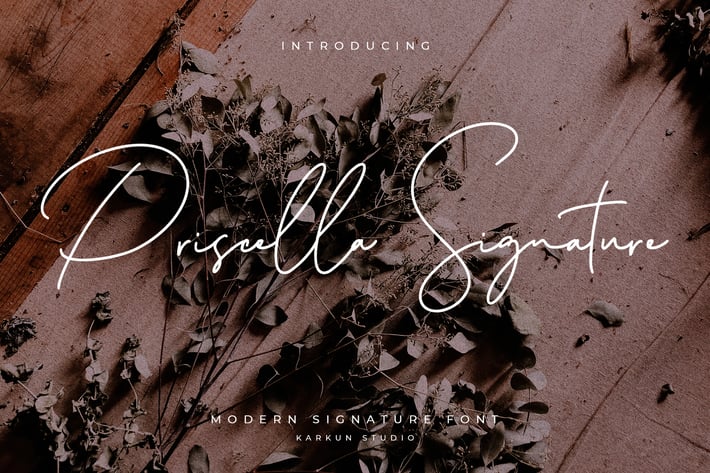
Priscilla Signature Font
Priscella Signature is a modern high-class script font typeface. It includes all basic glyphs with Multilingual characters. This font will pair beautifully with the altenates characters, signature or handwriting style. Destiny is perfect for titles, magazines headings, logo’s, presentations, posters, name card, web layouts, invitations, books, branding, and nearly any creative design.